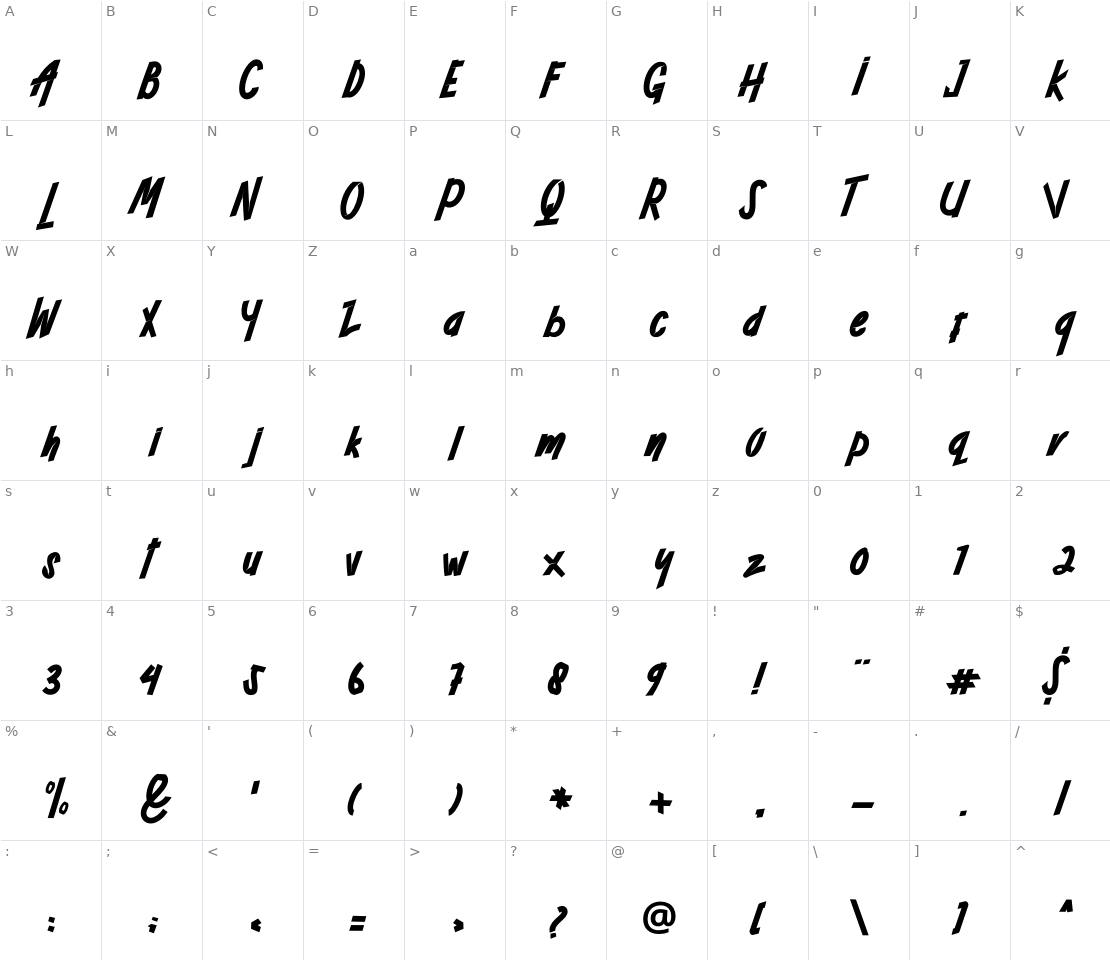
Adrenaline
by Creative LAB
Adrenaline is a bold, forward-slanting brush face from Creative LAB with fast, aggressive strokes that feel like they were painted mid-sprint. The thick letterforms carry a lot of kinetic energy, leaning hard into sporty and action-oriented territory. Built for headlines, athletic branding, and event graphics where the type itself needs to feel like it's in motion.